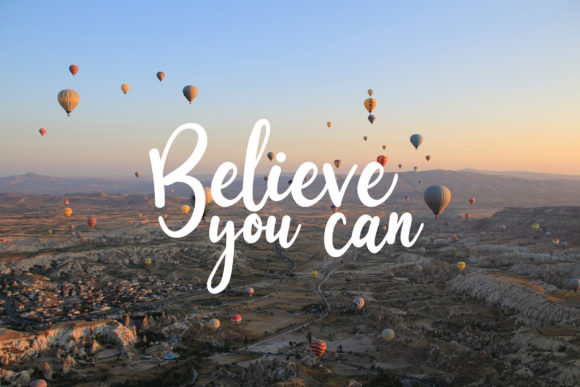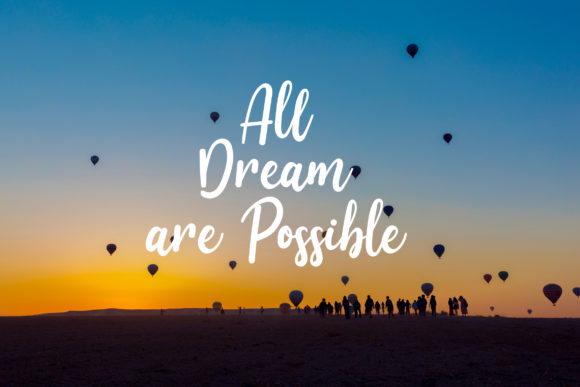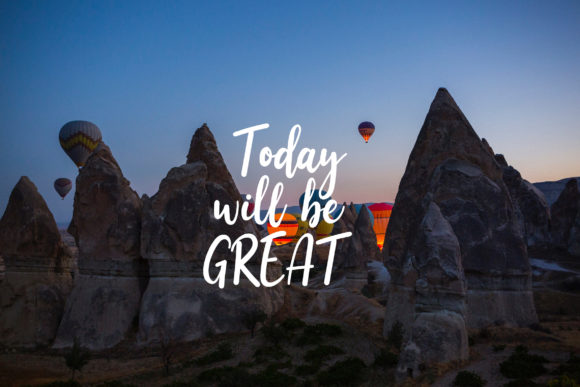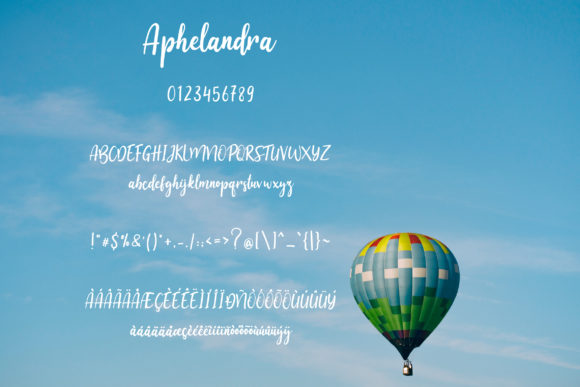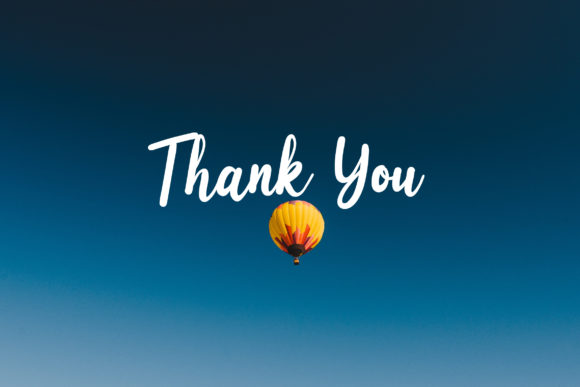
Introducing Aphelandra Font: The Perfect Choice for Your Creative Projects
Are you a designer, crafter, or DIY enthusiast looking for a beautiful and versatile font to elevate your creative projects? Look no further than Aphelandra Font! Crafted with love, this stunning font is designed to work perfectly in multiple designs, making it an ideal choice for weddings, invitations, greeting cards, and much more.
What Makes Aphelandra Font So Special?
Aphelandra Font is more than just a font – it’s a creative tool that can help you bring your ideas to life. Its unique and elegant design makes it perfect for a wide range of projects, from formal wedding invitations to playful greeting cards. Whether you’re a professional designer or a DIY enthusiast, Aphelandra Font is sure to impress.
Key Features of Aphelandra Font
- Beautifully Crafted: Aphelandra Font is crafted with love, ensuring that every detail is perfect and every character is unique.
- Versatile: This font is designed to work perfectly in multiple designs, making it an ideal choice for a wide range of projects.
- Elegant: Aphelandra Font features an elegant design that’s perfect for formal and informal projects alike.
Aphelandra Font is perfect for a wide range of creative projects, including:
- Wedding Invitations: Create beautiful and elegant wedding invitations that will set the tone for your special day.
- Greeting Cards: Design stunning greeting cards for birthdays, holidays, and other special occasions.
- Stationery: Create custom stationery, including letterheads, notecards, and more.
- DIY Crafts: Use Aphelandra Font to add a personal touch to your DIY crafts, including scrapbooking, journaling, and more.
Why Choose Aphelandra Font?
With so many fonts to choose from, why choose Aphelandra Font? Here are just a few reasons:
- Unique Design: Aphelandra Font features a unique and elegant design that’s sure to stand out.
- High-Quality: This font is crafted with love and attention to detail, ensuring that it’s of the highest quality.
- Versatile: Aphelandra Font can be used in a wide range of projects, making it a great value.
Tips for Using Aphelandra Font
Here are a few tips for using Aphelandra Font in your creative projects:
- Experiment with Different Sizes: Try using Aphelandra Font in different sizes to create visual interest.
- Pair with Other Fonts: Pair Aphelandra Font with other fonts to create a unique and interesting look.
- Use in Combination with Images: Use Aphelandra Font in combination with images to create a stunning visual effect.
Aphelandra Font is a beautiful and versatile font that’s perfect for designers, crafters, and DIY enthusiasts. With its unique and elegant design, it’s sure to elevate your creative projects and add a personal touch. Whether you’re creating wedding invitations, greeting cards, or DIY crafts, Aphelandra Font is the perfect choice.